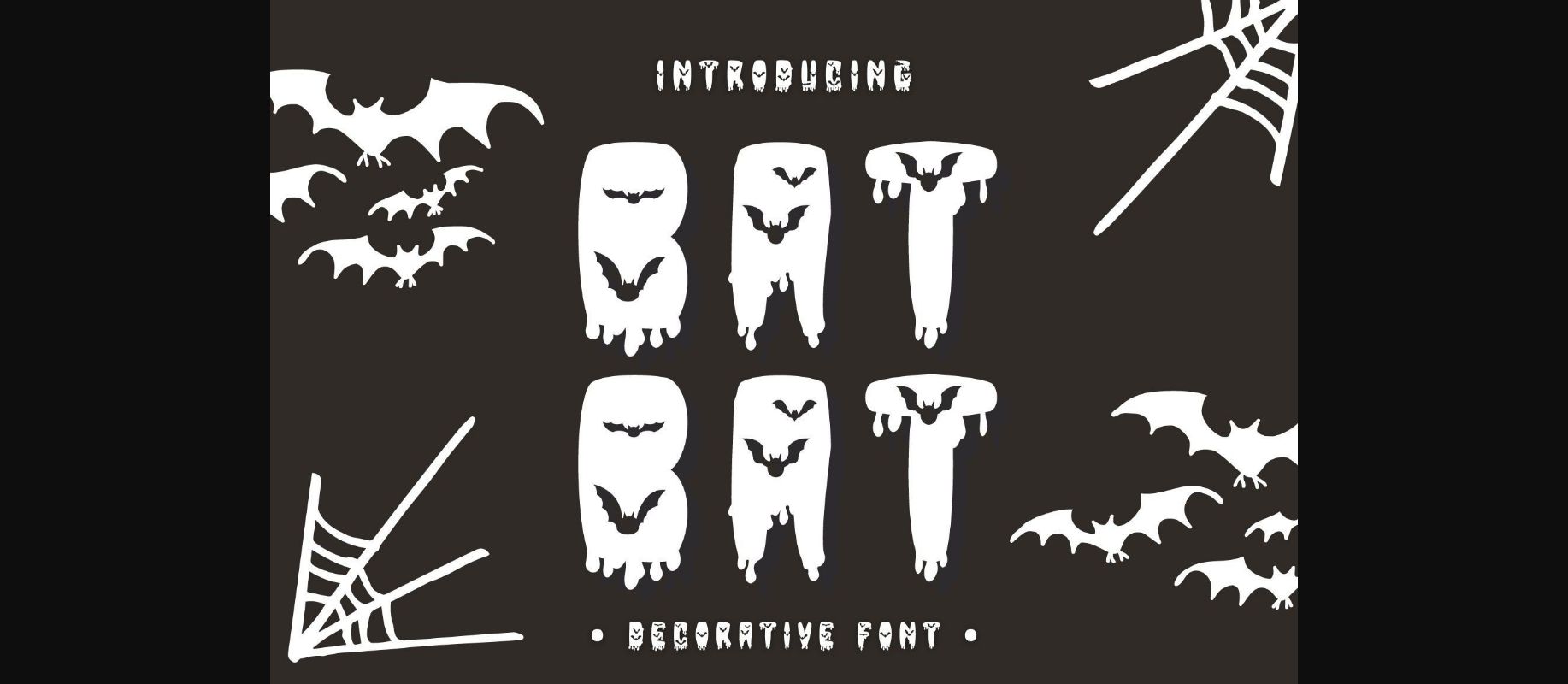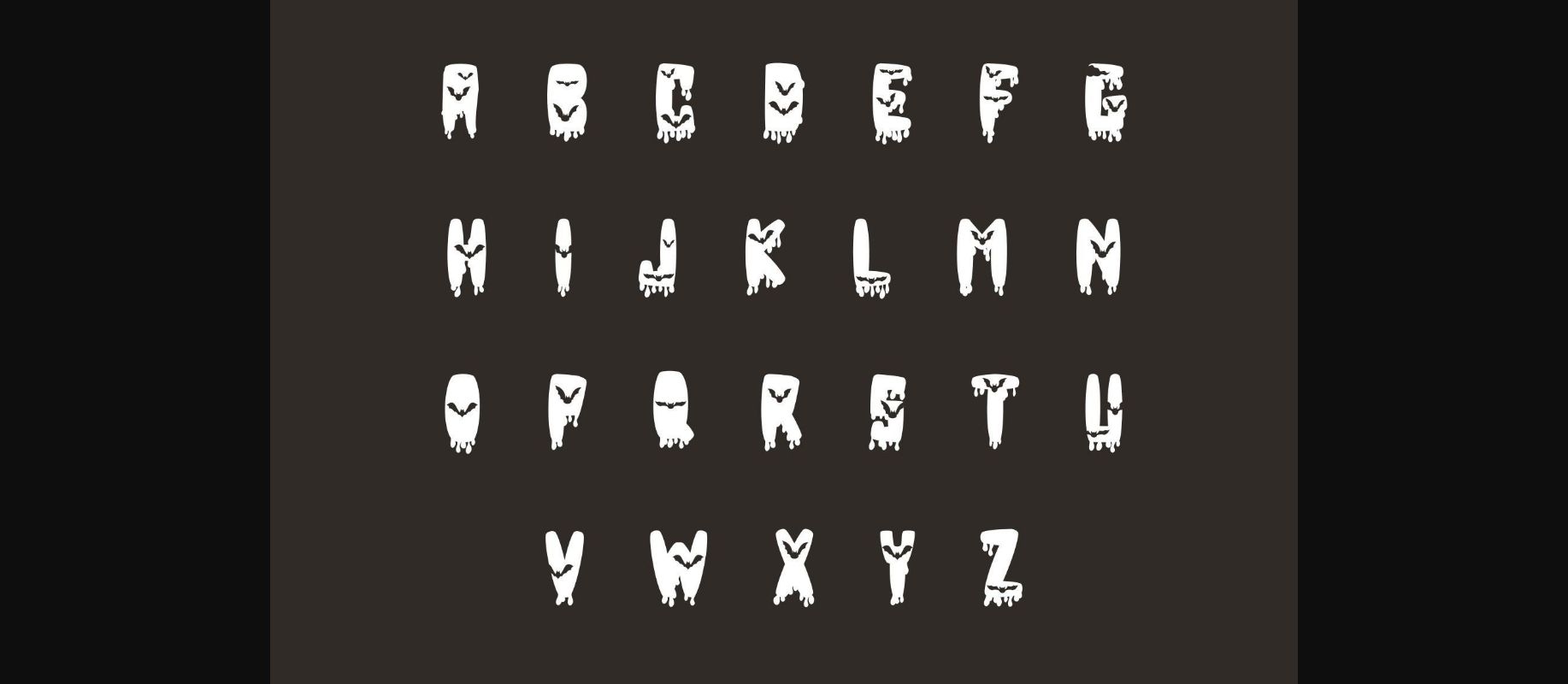
About Bat Bat Font
Bat Bat is a scary and fun decorative font. It embodies playfulness and authenticity and is the perfect choice for all your favorite Halloween projects, or even for blog posts, logos, branding, ads, invitations, greeting cards, planners, photo albums, decorations, and much more. Add it to any of your designs, and enjoy the results!